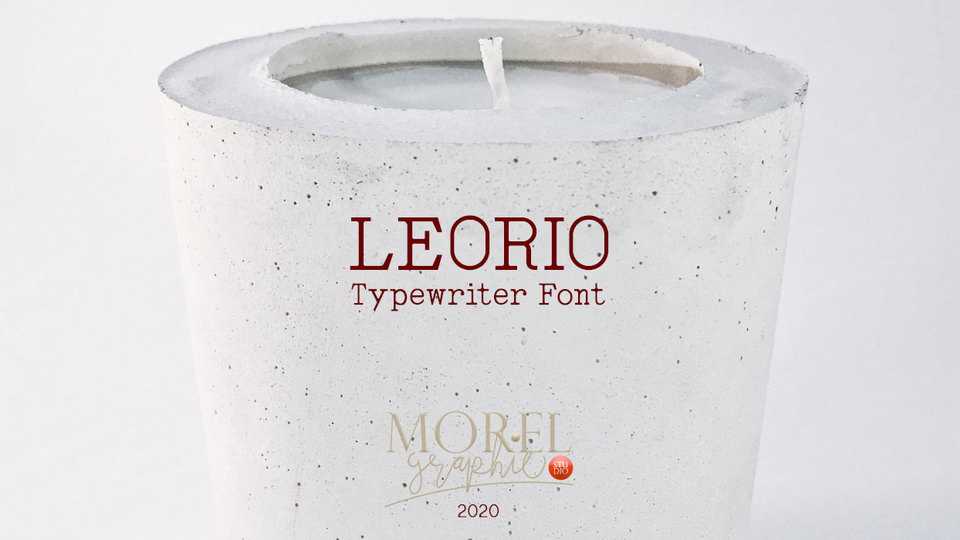
Download Leorio font, a classic mechanical typewriter typeface. Leorio is perfect natural logos and quotes, vintage effects, it is also quite legible at small sizes as body copy.